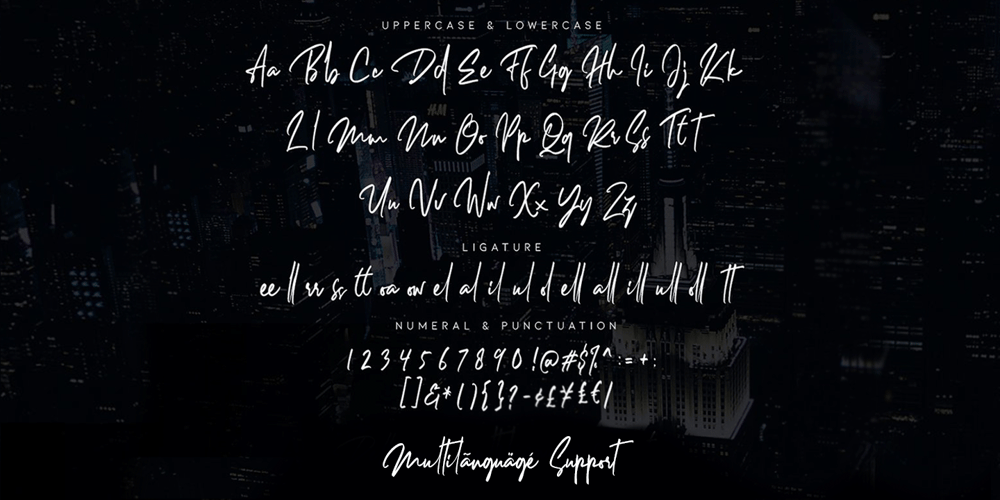
Dellamonde Font Family was designed by Malik Wisnu and published by MlkWsn. Dellamonde contains 2 styles and family package options. Dellamonde is a Classy Script font with 2 styles: regular and italic. Inspired by luxury and branded stuff which makes this font looks classy and awesome in many ways to your latest project. Dellamonde is perfect for logos & branding, photography, invitation, watermark, advertisements, product designs, stationery, wedding designs, label, product packaging, special events or anything that need handwriting taste.